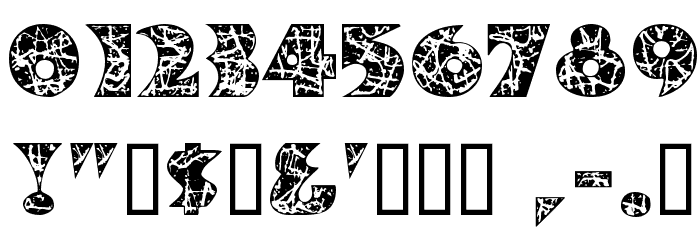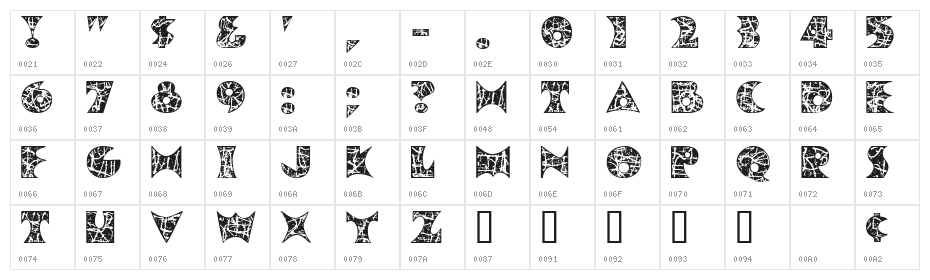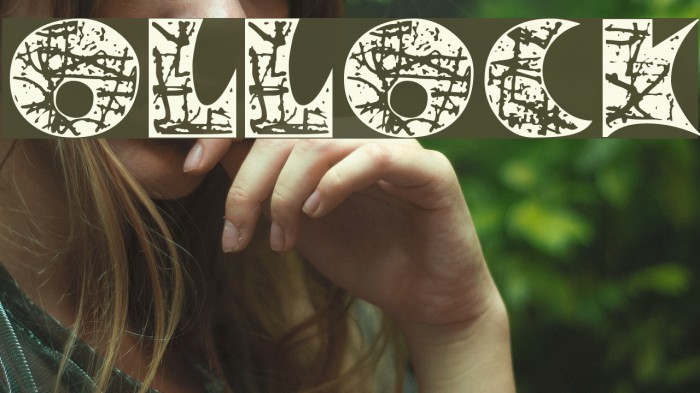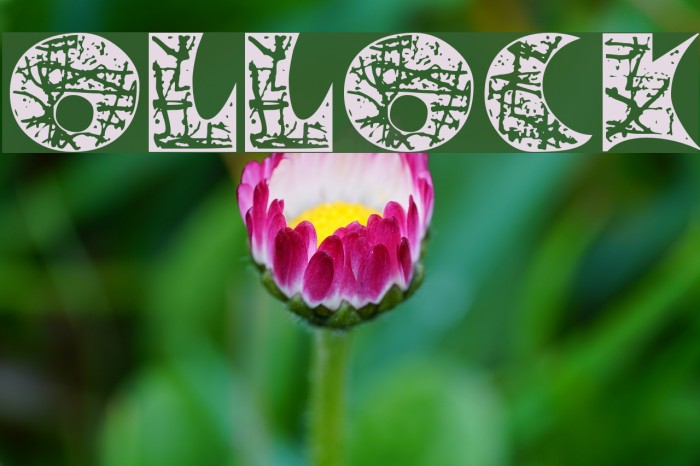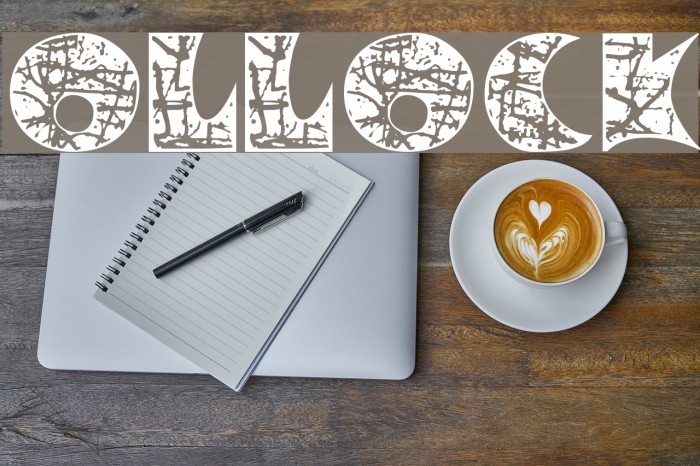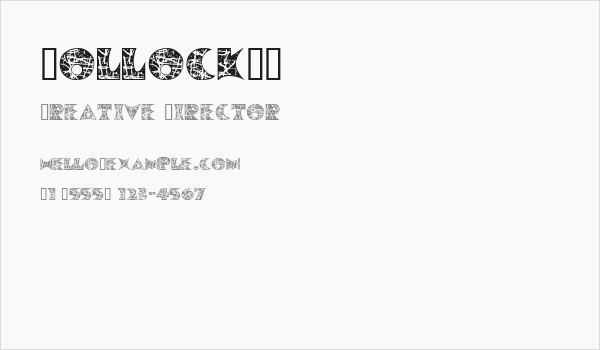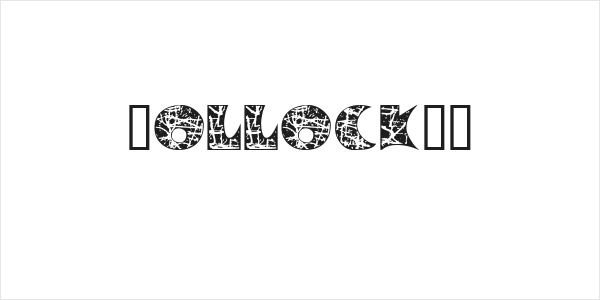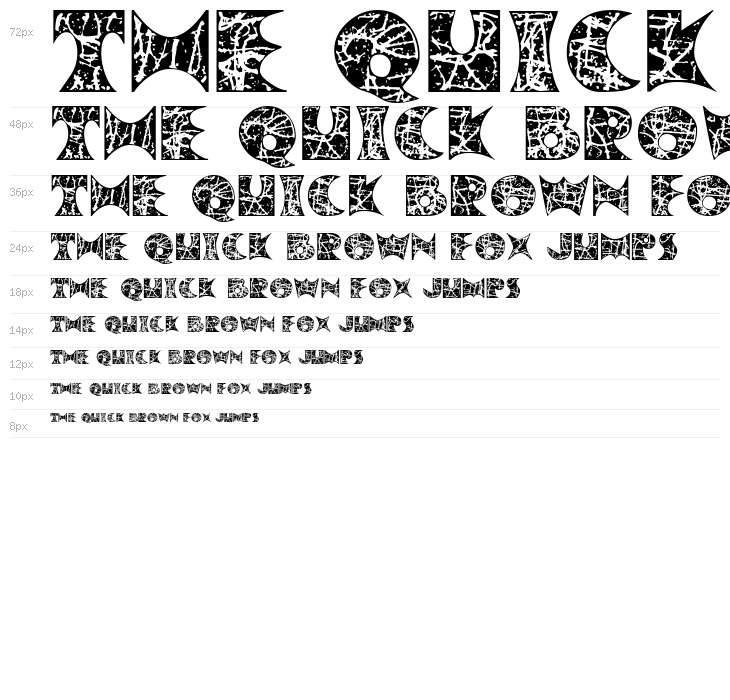
PollockMF Font
PollockMF Description
This font features a bold and artistic design with a distinctive splatter pattern reminiscent of abstract expressionist art. Each character is filled with intricate, chaotic textures that create a sense of movement and energy. The uppercase letters are particularly striking, with their bold forms and unique internal patterns. The numbers and special characters maintain this artistic theme, making the font suitable for creative and unconventional projects. Its decorative style makes it stand out, ideal for designs that require a strong visual impact.
| Overall Style | Artistic, Modern |
| Proposed Projects | Ideal for art-themed posters, album covers, creative branding, and any project needing a bold, artistic touch. |